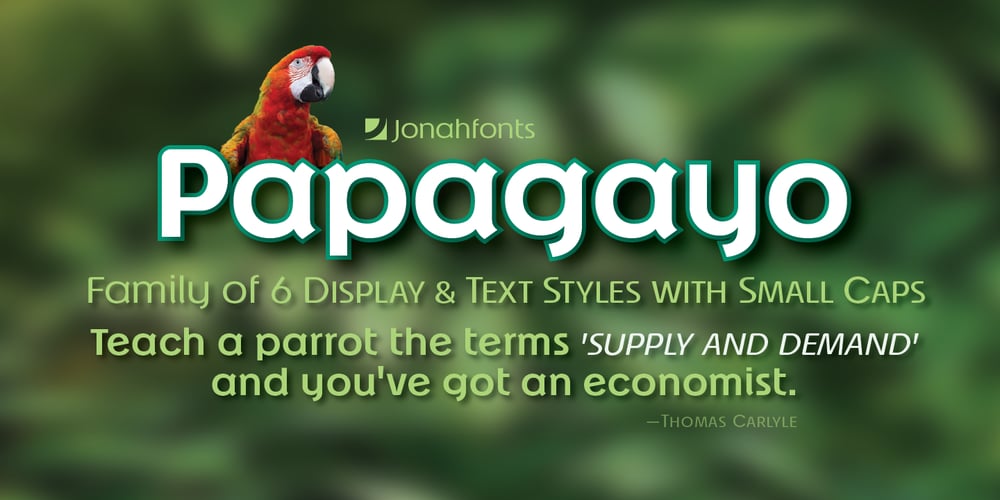
Papagayo Font Family was designed by John Nahmias and published by Jonahfonts. Papagayo contains 6 styles and family package options. Papagayo in 6 versions Light & Regular with Italics and Small-Caps. Designed with short ascenders and descenders for tighter line spacing. Effective for short headlines and texts. By invoking the Stylistic Alternates feature to an entire line or paragraph the M W g m w y will result in their respective alternates. You can also invoke each single glyph with the Alternate feature. The Alternates g & y contain a more characteristic letter-form for improving legibility in smaller texts.